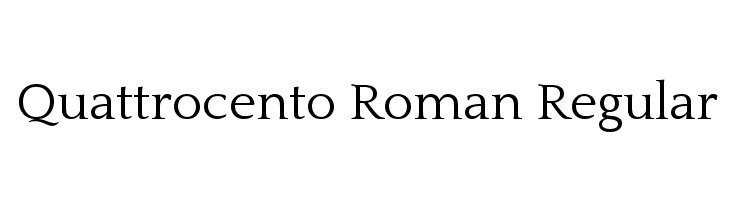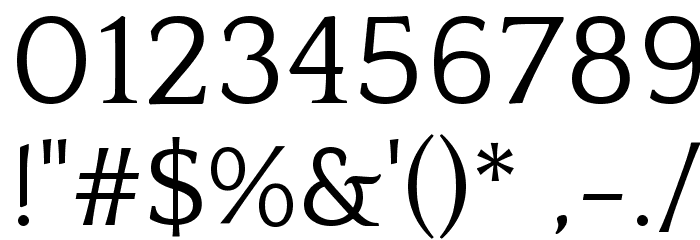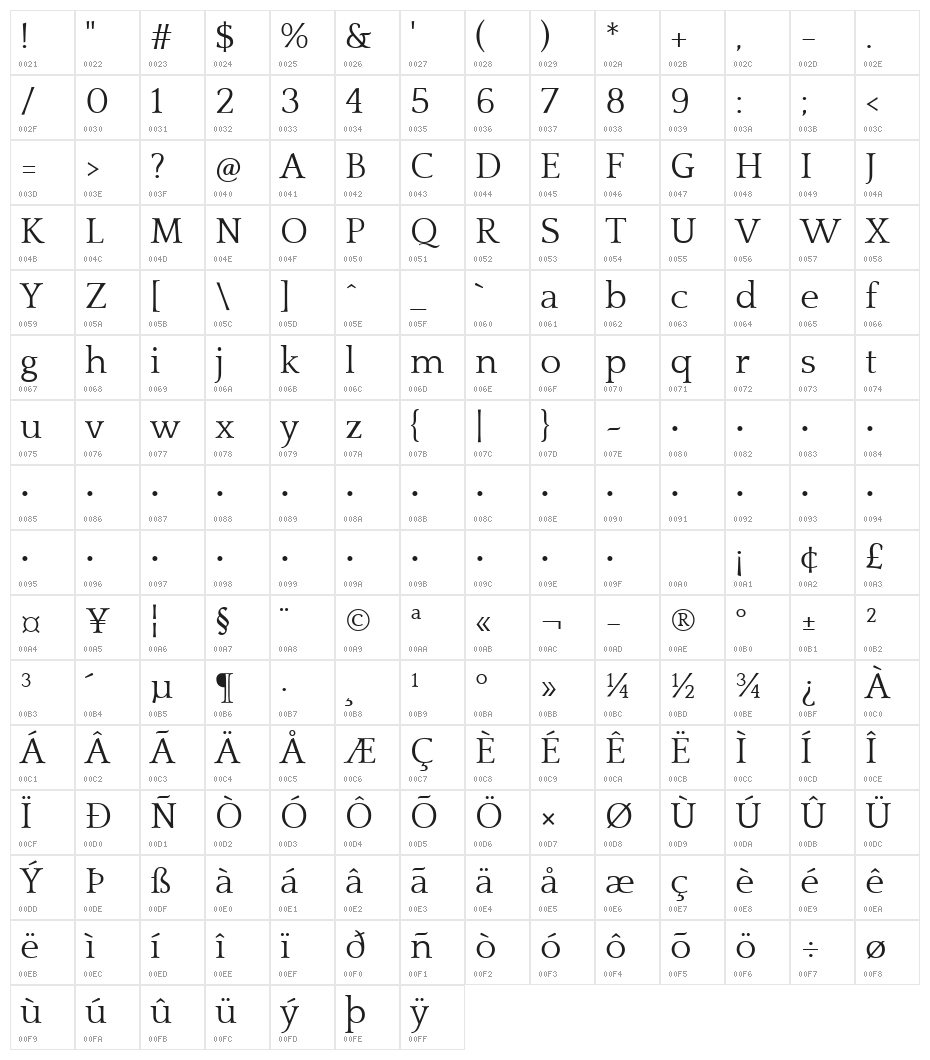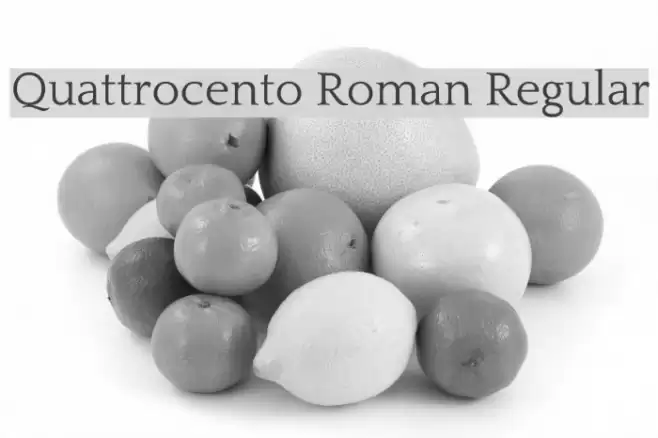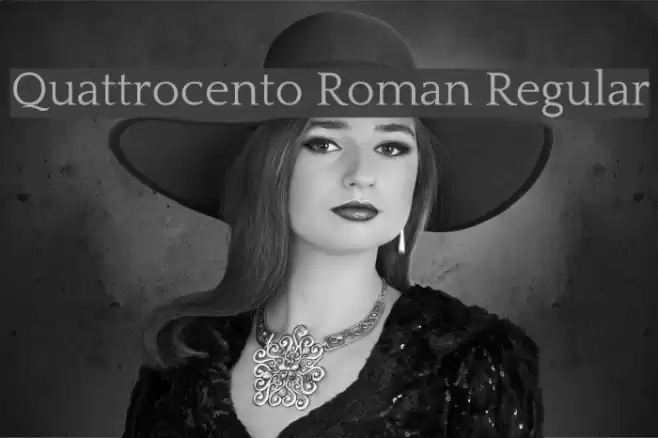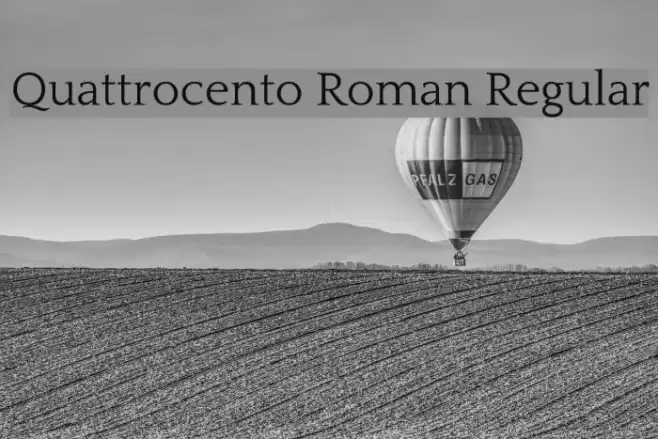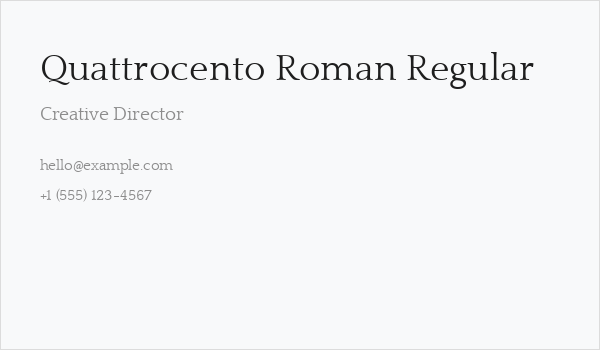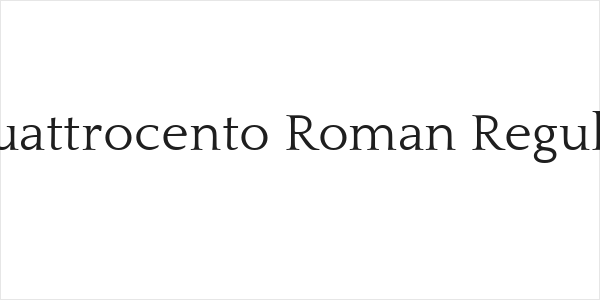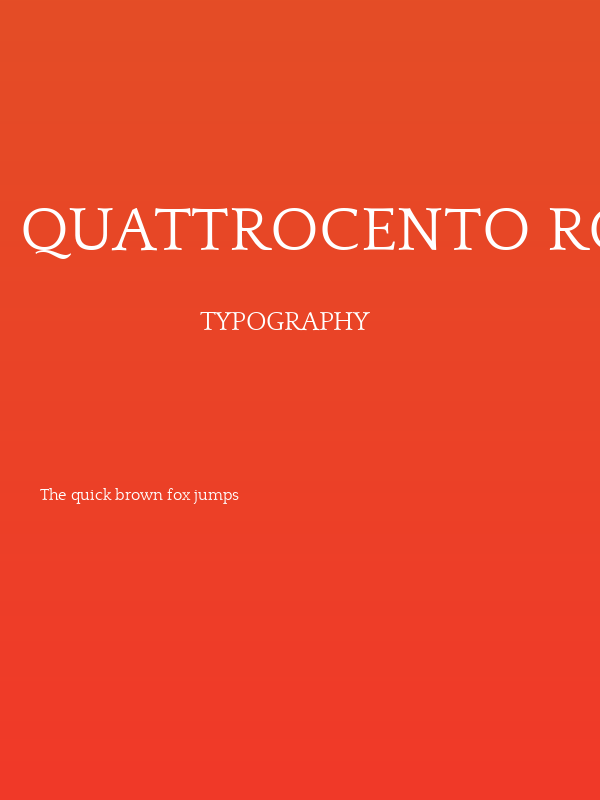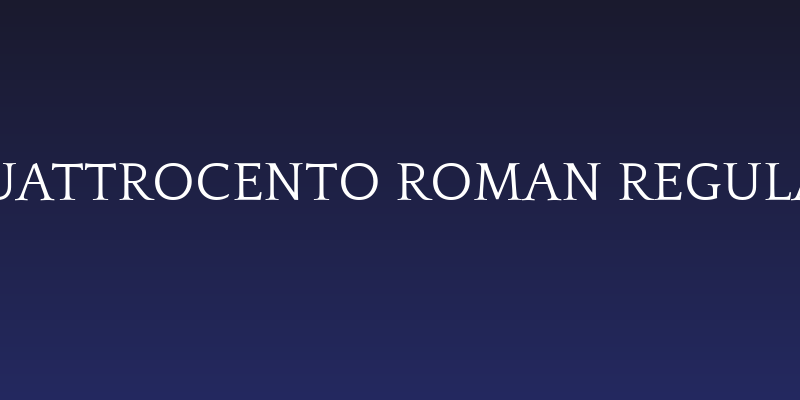
Quattrocento Roman Regular Font
Quattrocento Roman Regular Description
This font exudes a classic and timeless elegance, characterized by its refined serif details and balanced proportions. The uppercase letters are stately and well-defined, while the lowercase letters maintain a harmonious flow, making it suitable for both formal and casual applications. The numerals are clear and distinct, ensuring readability in various contexts. Special characters are thoughtfully designed to complement the overall aesthetic. This font's versatility makes it ideal for a wide range of design projects, from editorial layouts to branding materials.
| Proposed Projects | Ideal for editorial design, branding, book covers, and formal invitations. |